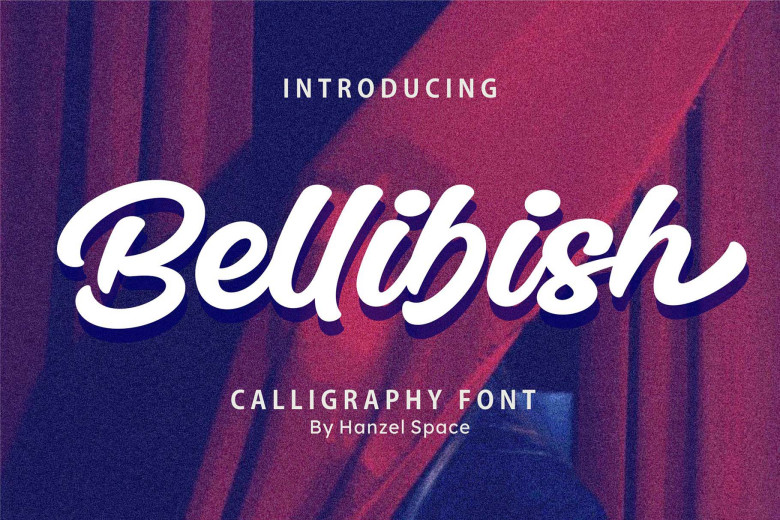
Bellibish Font
Bellibish is a Calligraphy Font. This font was created to design both logotype and lettering style logos for your Brand or clients, all the graphic stuff you can imagine such as badge, sign, packaging, headline, title, T-shirt/apparel, Poster, etcetera, can use this font then end.
Bellibish Calligraphy Script Font